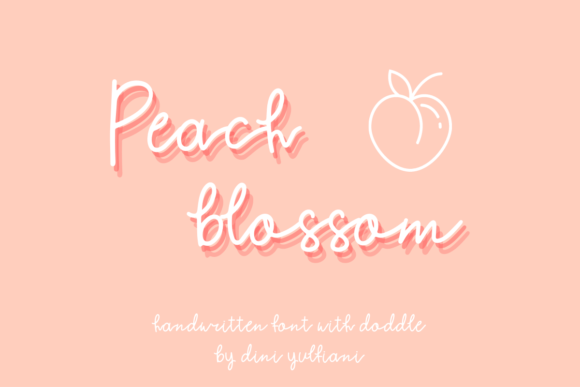
**Introducing Peach Blossom: The Blossoming Font for Captivating Creations**
Step into a realm of whimsical charm and enchanting aesthetics with Peach Blossom, an exquisite script font that will transform your digital artistry into captivating masterpieces. Its delicate strokes, flowing with the grace of a dancer, will elevate your designs to new heights of elegance and allure.
Peach Blossom is more than just a font; it's a creative catalyst that will ignite your imagination and inspire you to create breathtaking designs that leave an everlasting impression. Whether you're crafting captivating web page titles, alluring branding for your business, or simply adding a touch of enchantment to your social media posts, Peach Blossom is the perfect companion.
With its versatility, Peach Blossom effortlessly adapts to a myriad of creative endeavors. Design eye-catching product packaging that commands attention on shelves or create captivating product designs that exude sophistication and style. Adorn labels with Peach Blossom's elegant script, adding a touch of allure to any product.
Capture the essence of special moments with Peach Blossom, the perfect font for photography. Its delicate curves and enchanting flow will enhance your photos, preserving precious memories with a touch of timeless grace. Web designers, rejoice! Peach Blossom is the secret weapon you've been searching for. Create websites that blossom with beauty and functionality, leaving users captivated from the moment they land on your page.
Peach Blossom is the brainchild of Fashion Creative, renowned for their exceptional artistry and dedication to crafting fonts that empower creatives. Each stroke of Peach Blossom has been meticulously designed to evoke emotions and inspire creativity. It's not just a font; it's an invitation to embark on a journey of artistic exploration.